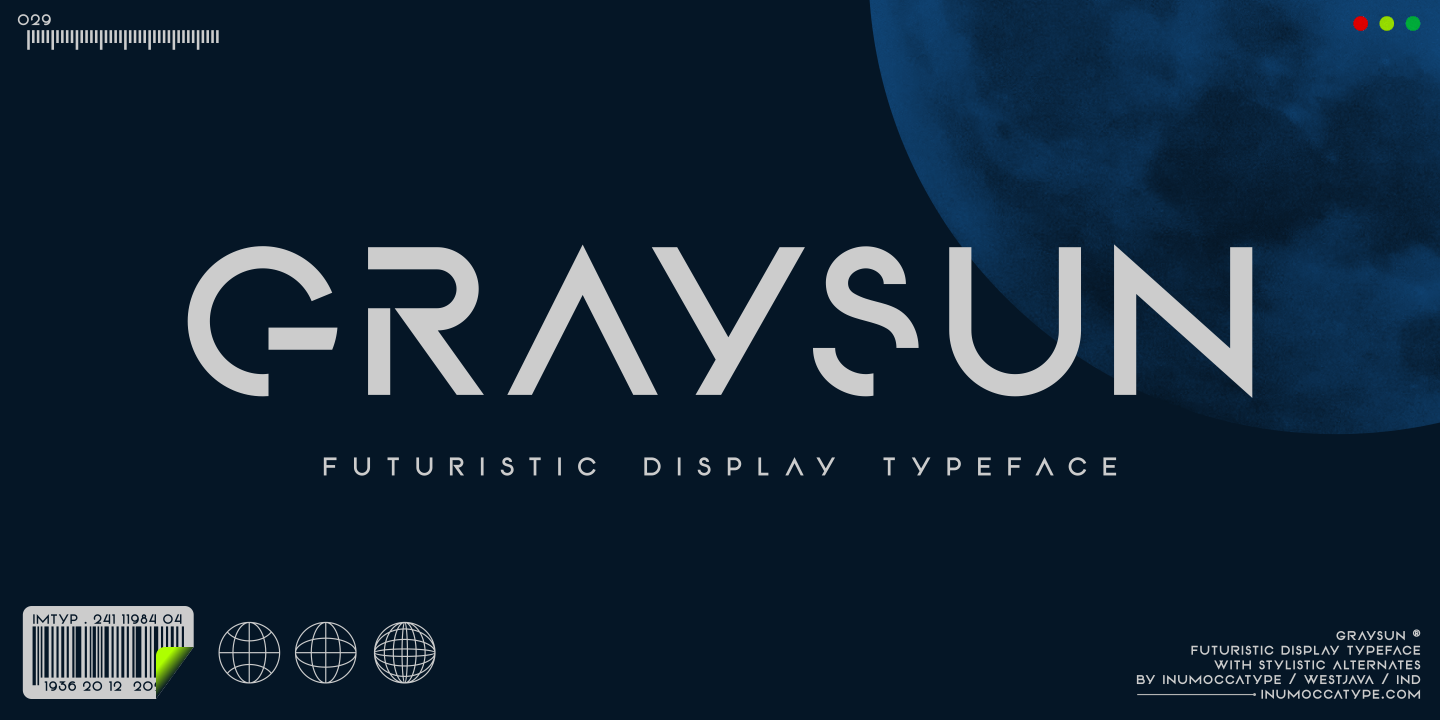
GraySun Font is perfect for contemplative wellness centers, minimalist architectural studios, modern meditation apps, sophisticated weather services, ambient music album covers, contemporary art galleries, mindful lifestyle brands, serene spa treatments, twilight photography portfolios, and any tranquil project that celebrates the gentle beauty of overcast skies and the peaceful wisdom found in quiet, reflective moments.
What makes GraySun Font exciting is its serene sophistication that captures the subtle beauty of diffused sunlight filtering through gentle clouds and the peaceful contemplation of overcast afternoons. This typeface embodies the essence of quiet elegance with refined letterforms that suggest the soft glow of filtered light and the meditative calm found in subdued natural environments. The font's contemplative character makes it perfect for brands and projects that want to communicate mindfulness, sophistication, and the understated beauty of gentle, atmospheric conditions.
The GraySun Font family includes multiple weights and atmospheric variations, featuring ultra-light, light, regular, and medium versions along with subtle variations and alternate characters that capture different moods of filtered light. This comprehensive collection allows designers to create peacefully sophisticated typography that maintains the font's signature serene character while providing flexibility for various wellness and contemporary design applications.
When exploring authentic atmospheric typography, GraySun Font Free Download offers designers an exceptional opportunity to work with a typeface that genuinely captures the spirit of peaceful contemplation and sophisticated simplicity. This font demonstrates innovative design thinking by incorporating the gentle gradations and soft transitions that define both overcast lighting conditions and the contemporary appreciation for mindful, minimalist aesthetics.
Professional designers appreciate GraySun Font for its ability to instantly communicate calm sophistication and atmospheric beauty across various wellness and contemporary platforms. The font's serene character makes it particularly effective for wellness brands, architectural firms, and lifestyle companies seeking to establish connections with audiences who value tranquility, mindfulness, and the subtle beauty of natural atmospheric phenomena.
The contemporary appeal of GraySun Font lies in its perfect representation of peaceful sophistication and atmospheric beauty that resonates with people seeking calm and contemplative experiences in our busy world. This typeface serves as a visual meditation on the gentle beauty found in quiet moments and the sophisticated appeal of understated natural elegance.
For creative professionals working with wellness and contemporary minimalist brands, GraySun Font represents the ultimate typography solution that brings authentic atmospheric serenity and sophisticated calm to any application, ensuring designs reflect the peaceful beauty and contemplative wisdom that define the most restorative and mindful experiences.